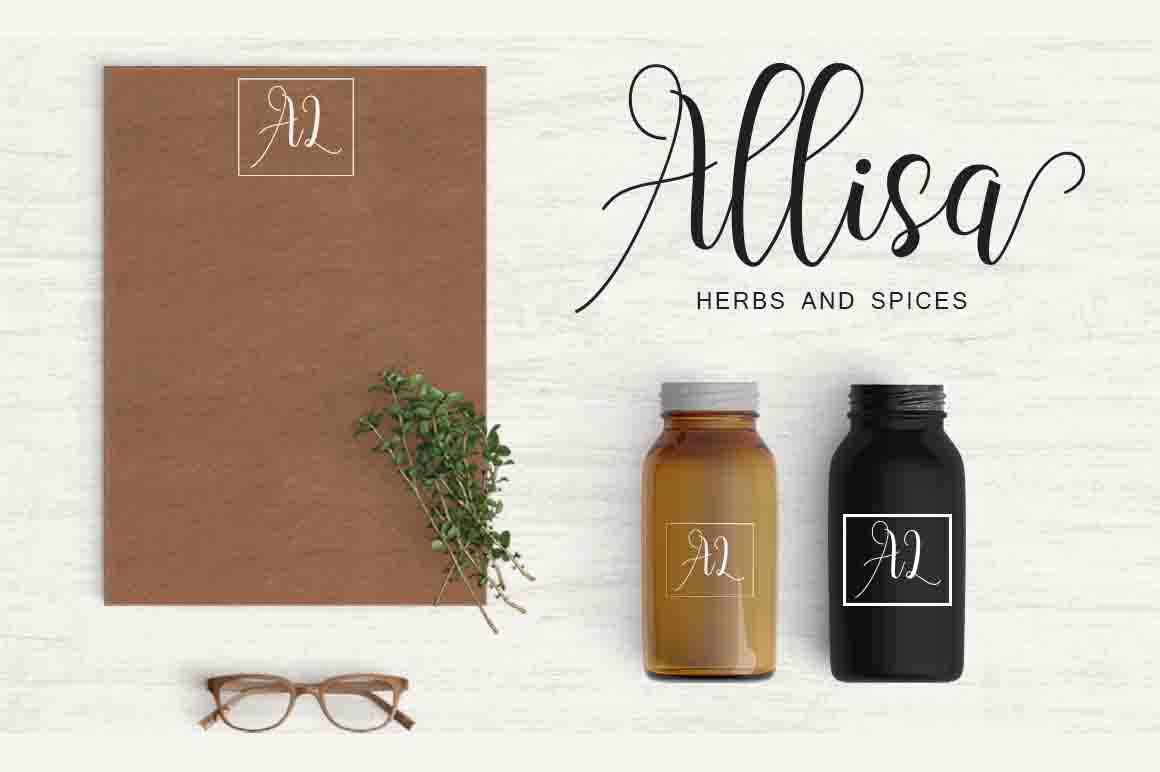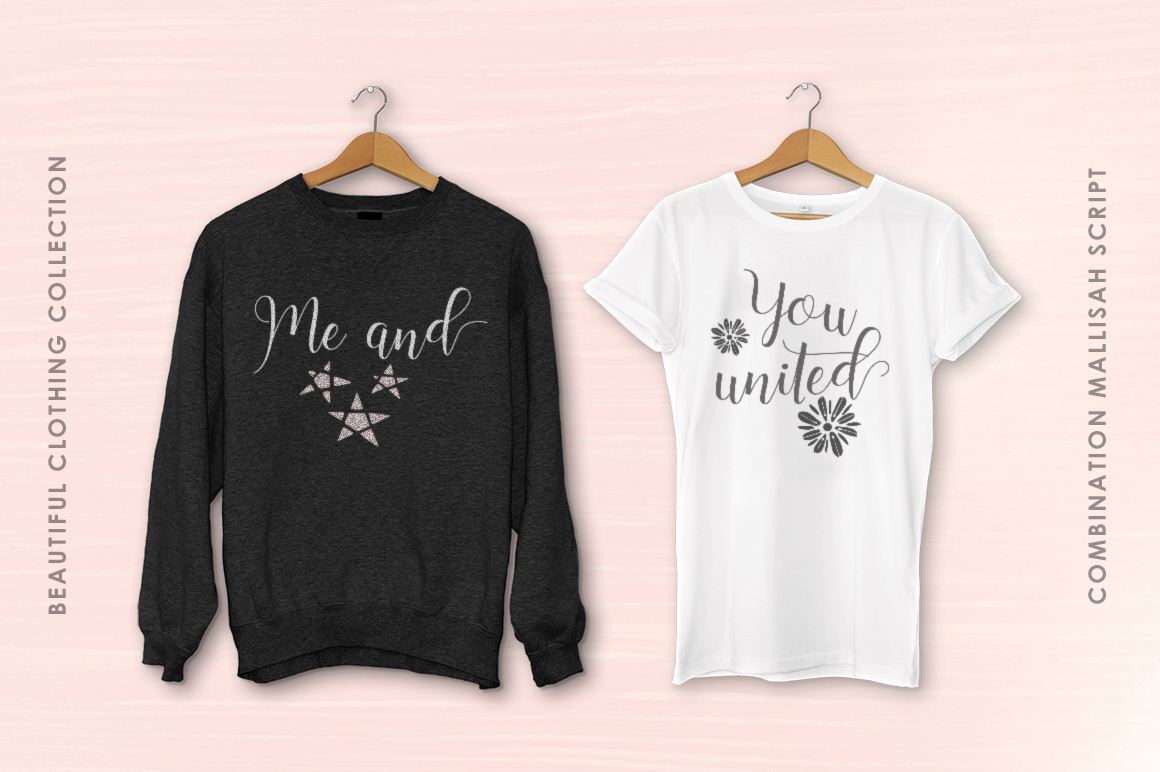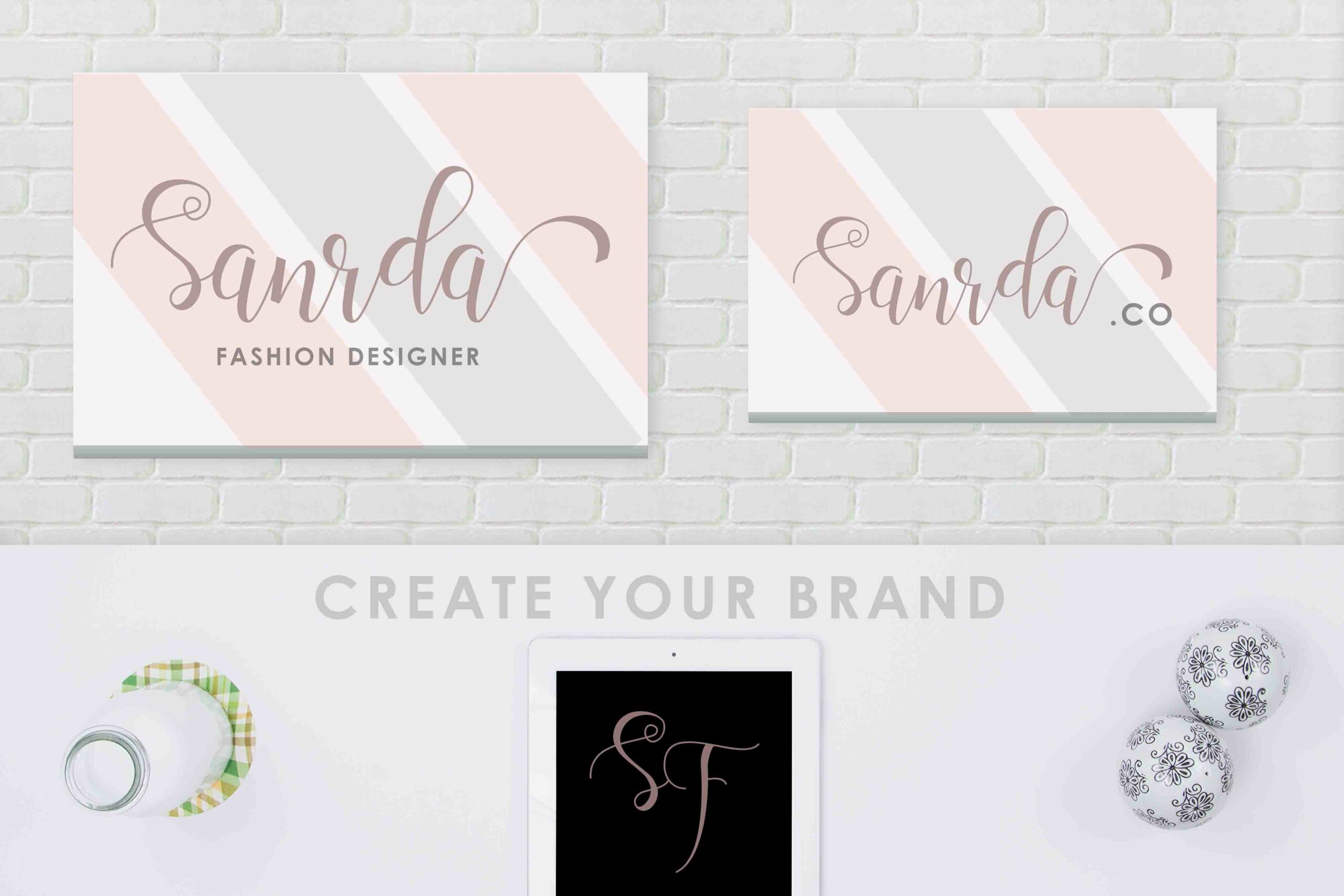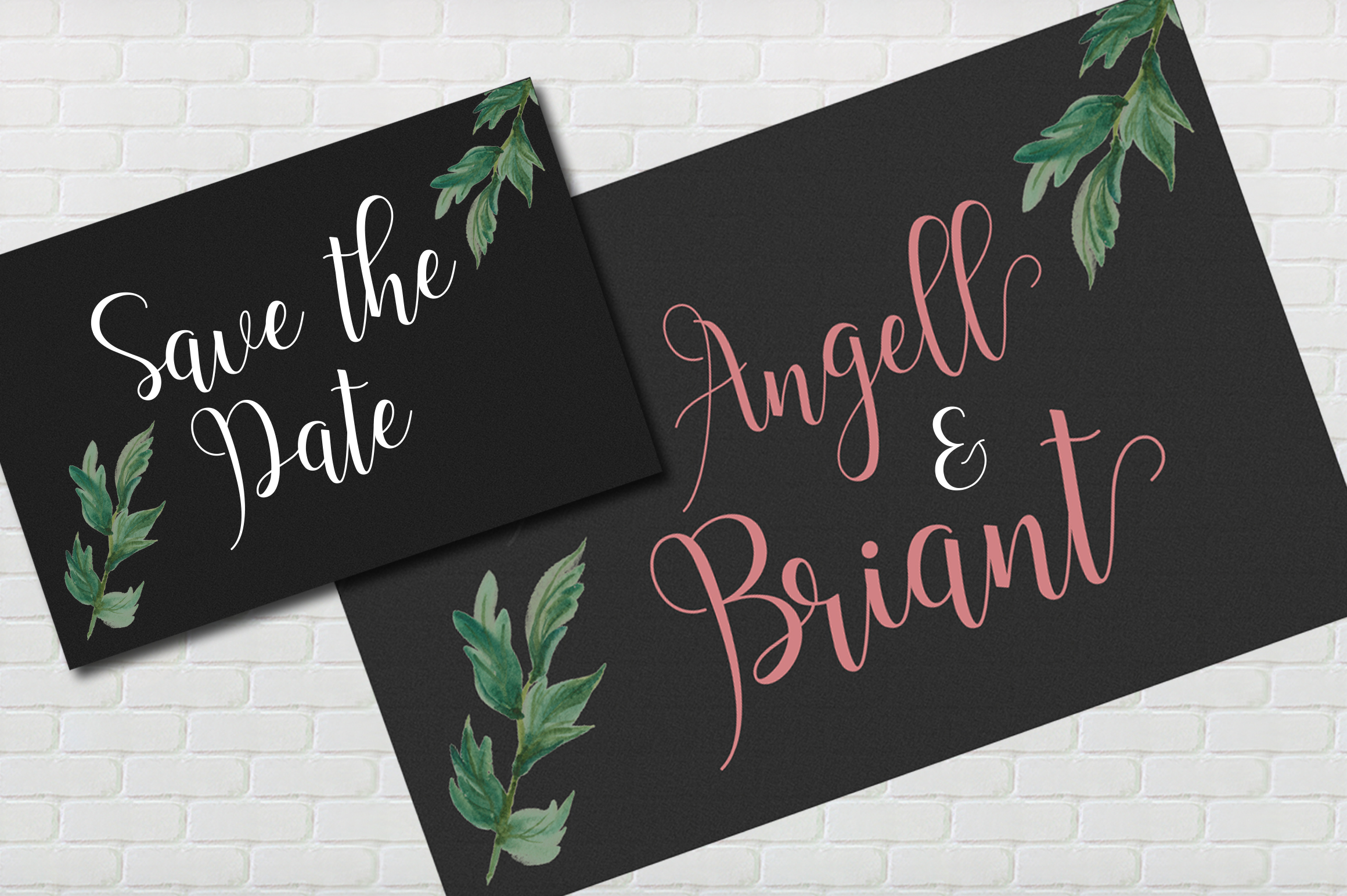
Mallisah Font
About Mallisah Font
Mallisah is a gorgeous script font, one anchored in style and grace. This font reads well across a large range of designs, and comes with a ton of glyph options.